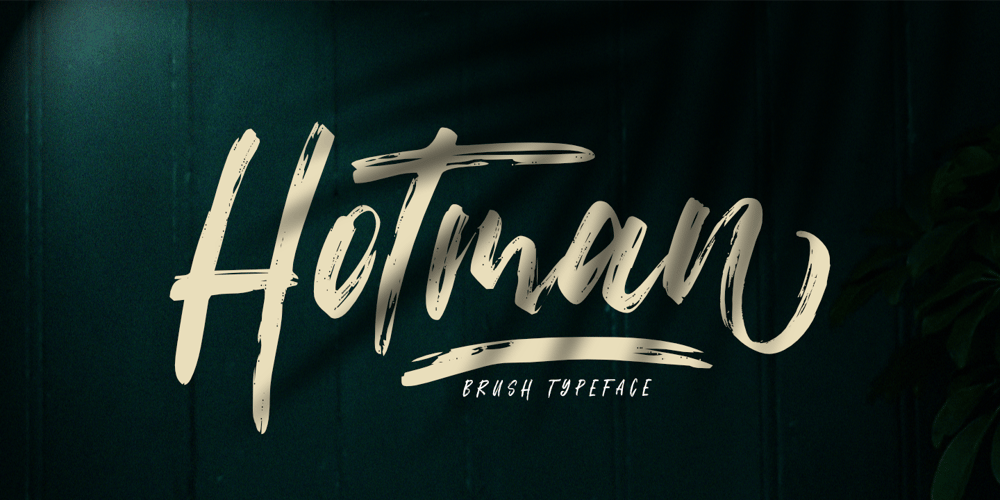
Hotman Font Family was designed by Aldy Sidik and published by Epiclinez. Hotman contains 1 styles and family package options. Say hello to Hotman’s dynamic energy that sets your designs on fire! The rough texture of this brush typeface adds depth and character, making it perfect for creating memorable logos, posters, and advertisements. Its versatility allows you to switch seamlessly between modern sophistication and urban coolness, giving your designs an extra edge that grabs attention effortlessly.Hotman features : Standard Latin Numbers, symbols, and punctuations Ligatures Stylistic Letter Set 52 Under Swashes Multilingual Support. Fully accessible without additional design software Simple Installations Works on PC & Mac Thank You.